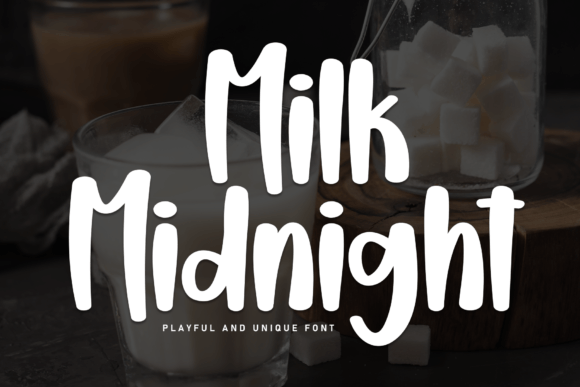
Milk Midnight Font: Elevate Your Designs with Elegance and Sophistication
In the world of typography, fonts play a crucial role in conveying the tone and personality of a design project. Among the numerous fonts available, Milk Midnight stands out as a trendy handwritten font that exudes a contemporary atmosphere and impeccable form. Inspired by timeless classic calligraphy, Milk Midnight is designed to add elegance and class to any design project. In this article, we’ll explore the features, benefits, and usage of Milk Midnight Font, and how it can elevate your designs to new heights.
The Inspiration Behind Milk Midnight Font
Milk Midnight Font draws inspiration from traditional calligraphy, which has been a cornerstone of elegant writing for centuries. The font’s creator aimed to capture the essence of classic calligraphy and infuse it with a modern twist, making it suitable for a wide range of design applications. The result is a font that boasts a unique blend of sophistication and playfulness, perfect for designers seeking to add a touch of luxury to their work.
Key Features of Milk Midnight Font
Milk Midnight Font comes with a range of features that make it an excellent choice for designers. Some of its key features include:
- Handwritten style: Milk Midnight Font has a beautiful, handwritten style that adds a personal touch to any design project.
- Contemporary atmosphere: The font’s modern design ensures that it fits seamlessly into contemporary designs, while still maintaining a sense of elegance.
- Impeccable form: The font’s precise and clean lines make it easy to read and understand, even at small sizes.
- Trendy and versatile: Milk Midnight Font is suitable for a wide range of design applications, from branding and advertising to packaging and digital media.
Benefits of Using Milk Midnight Font
Using Milk Midnight Font in your design projects offers numerous benefits, including:
- Elegance and sophistication: The font’s classic calligraphy inspiration and modern design make it an excellent choice for adding a touch of elegance to your designs.
- Improved readability: Milk Midnight Font’s clear and precise lines ensure that your text is easy to read and understand, even at small sizes.
- Versatility: The font’s trendy and versatile design makes it suitable for a wide range of design applications, from print to digital media.
- Time-saving: With Milk Midnight Font, you can create stunning designs quickly and efficiently, saving you time and effort.
How to Use Milk Midnight Font in Your Designs
Using Milk Midnight Font in your designs is straightforward. Here are some tips to get you started:
- Pair it with other fonts: Milk Midnight Font pairs well with other fonts, such as sans-serif fonts like Arial or Helvetica. Experiment with different combinations to find the perfect match for your design.
- Use it for headings and titles: The font’s elegant and sophisticated design makes it perfect for headings and titles. Use it to add a touch of luxury to your designs.
- Experiment with colors and textures: Milk Midnight Font looks stunning in a range of colors and textures. Experiment with different options to find the perfect combination for your design.
Best Practices for Using Milk Midnight Font
To get the most out of Milk Midnight Font, follow these best practices:
- Use it consistently: Use Milk Midnight Font consistently throughout your design to create a cohesive look and feel.
- Don’t overuse it: While Milk Midnight Font is elegant and sophisticated, overusing it can make your design look cluttered and overwhelming. Use it sparingly to add emphasis and create visual interest.
- Consider your audience: Before using Milk Midnight Font, consider your audience and the tone you want to convey. The font’s elegant and sophisticated design makes it perfect for luxury brands and high-end designs.
Milk Midnight Font is a trendy handwritten font that adds elegance and class to any design project. With its inspiration from timeless classic calligraphy and modern design, it’s perfect for designers seeking to create stunning and sophisticated designs. By following the tips and best practices outlined in this article, you can get the most out of Milk Midnight Font and elevate your designs to new heights.
FAQs About Milk Midnight Font
- What is Milk Midnight Font? Milk Midnight Font is a trendy handwritten font with a contemporary atmosphere and impeccable form, inspired by timeless classic calligraphy.
- What is Milk Midnight Font used for? Milk Midnight Font is suitable for a wide range of design applications, including branding, advertising, packaging, and digital media.
- Is Milk Midnight Font easy to read? Yes, Milk Midnight Font is designed to be clear and easy to read, even at small sizes.